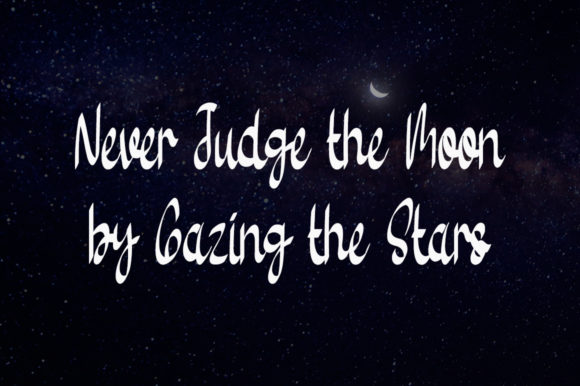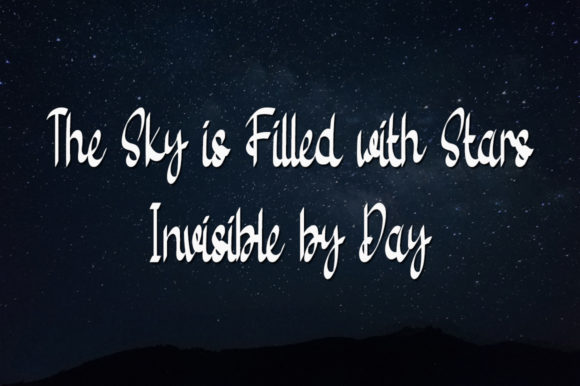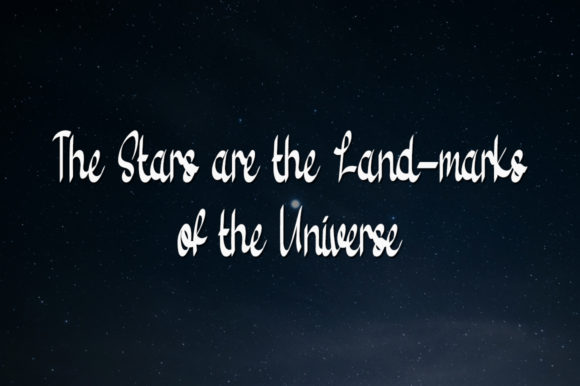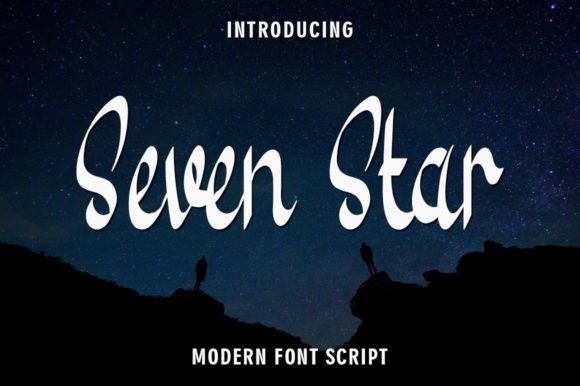
Introduction to Seven Star Font
Seven Star is a sweet and friendly handwritten font.
Seven Star is a sweet and friendly handwritten font. Its natural and unique style makes it incredibly fitting to a large pool of designs
Key Features of Seven Star Font